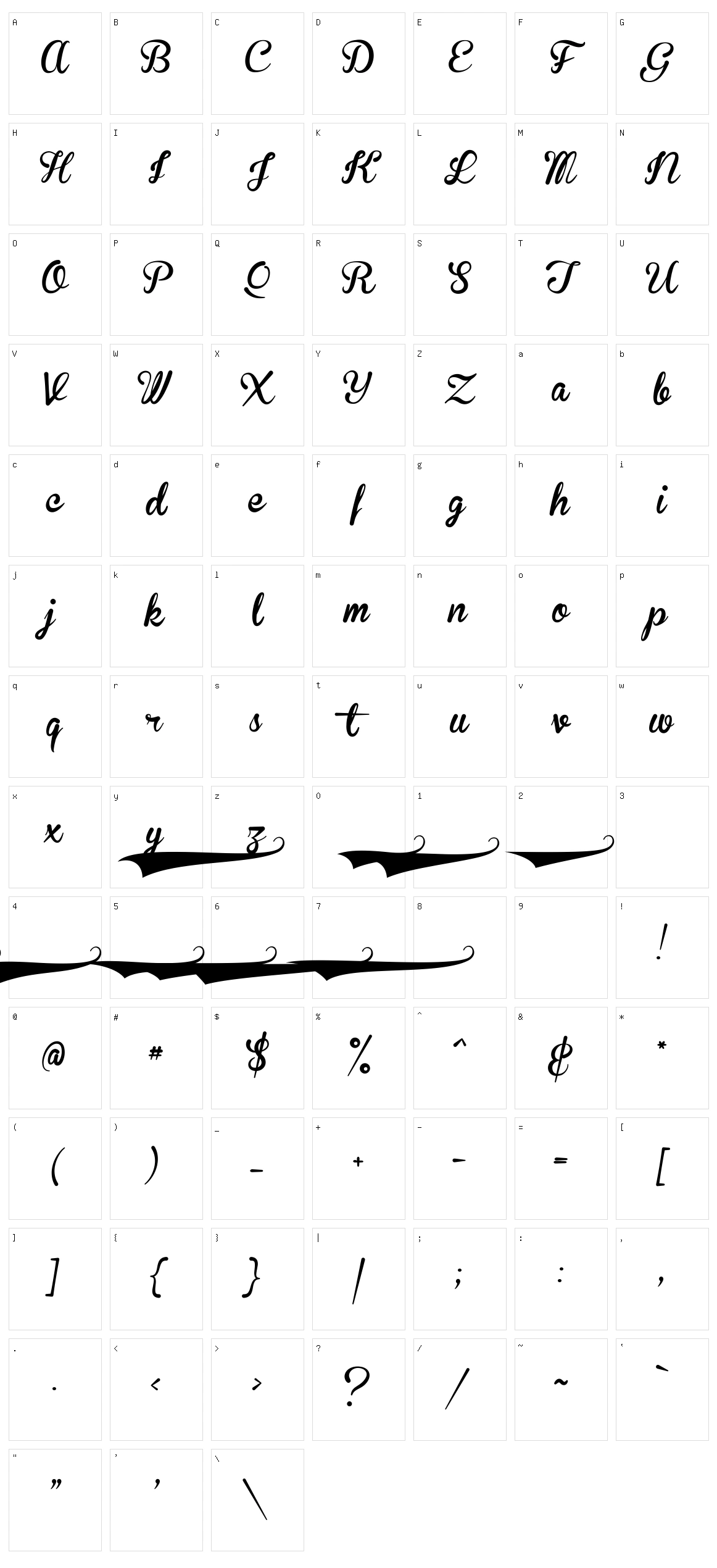
The free font Brannboll is carefully designed by Mans Greback, showcasing a thoughtful balance of creativity and usability and falls under the Old-School font style. When you download the ZIP file, it contains only 1485.18 KB of font files, making it lightweight and quick to download. Please review the license details below to understand permitted usage and distribution rights. If license information is not available, we recommend using this font for personal projects only or contacting the author directly for commercial usage permissions.